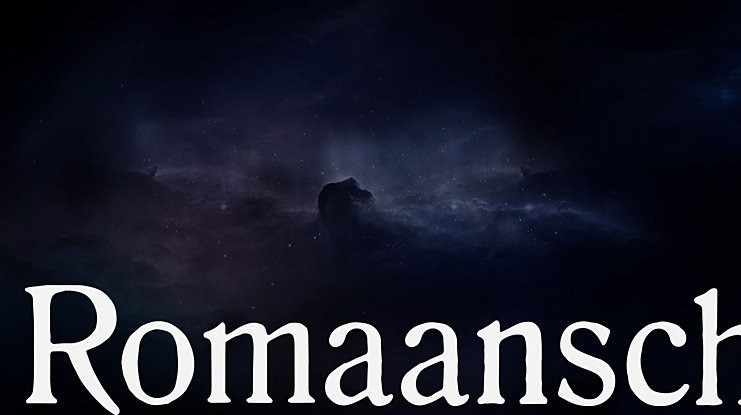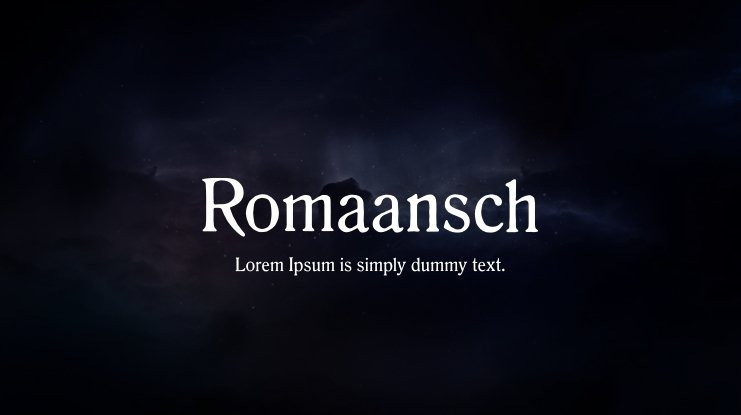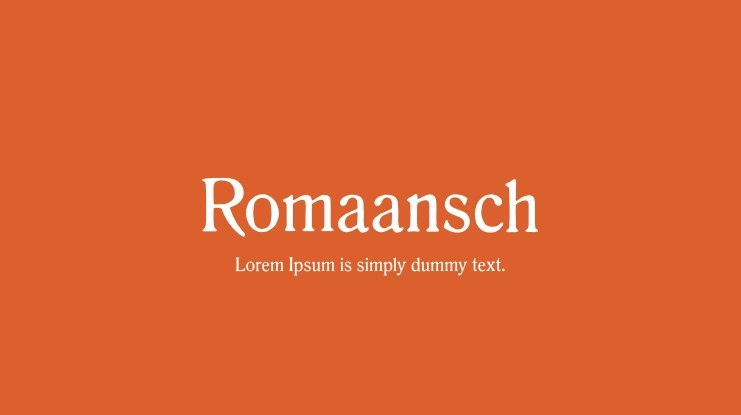
Romaansch Font
Romaansch Font, this is an Old Style serif font in the “Roman” classification. Derived from multiple source scans of pre-1921 Type Specimen sheets, It’s name comes from one version found in the v/a Nettenrode Foundry circa 1920.